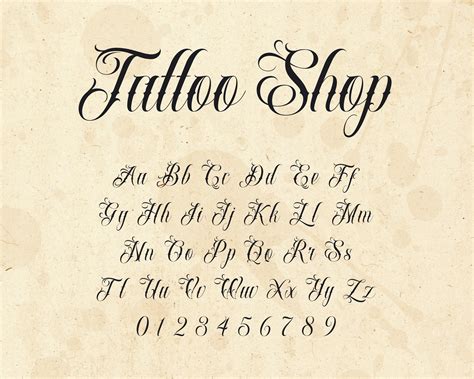
Tattoo Cursive Fonts, Tattoo is all about text and pictures in body art. Simply generate and share with your friends
The font includes alternate characters, ligatures, and multilingual support. Alevattros is a creative tattoo font that comes with a cursive script layout. For memorial tattoos, cursive fonts are preferable choices for example a name. Categories, popular, designers, optional web font download and links to similar fonts.
This is mainly because that cursive letters has an elegant, flowing appearance. And if you’re thinking about a word or phrase, there’s an overwhelming amount of. Generate cool and amazing fonts by using cursive tattoo font generator. Alevattros is a creative tattoo font that comes with a cursive script layout. Cursive fonts remind us of weddings, female passions, dramatic introductions,.
So, if you're looking for some bold. Clearly, this guy chose thick and strong cursive lettering done in black with shades of color to good effect. Home tattoos cute weird gothic more » graphic fonts alphabets. Tattoo is all about text and pictures in body art. But the cursive text is not only one type, there are four types of.
A free cursive font generator with cursive unicode letters for fancy cursive fonts. Simply generate and share with your friends Big swirly bits, huge visual appeal, and lots of variety. This is mainly because that cursive letters has an elegant, flowing appearance. Home tattoos cute weird gothic more » graphic fonts alphabets.
Use elegant fonts to make a statement, in logos, headlines, or other short pieces of text. Categories, popular, designers, optional web font download and links to similar fonts. Looking for cursive tattoo fonts? Tattoo is all about text and pictures in body art. Big swirly bits, huge visual appeal, and lots of variety.
Generate cool and amazing fonts by using cursive tattoo font generator. Revalina thin script font (otf, ttf, woff) Use elegant fonts to make a statement, in logos, headlines, or other short pieces of text. There are different styles of writing that you can use for text tattoos; However, for different languages, cursive writing can mean differently, for example, for eastern.
Classics (baskerville, futura, garamond) alongside hot new fonts (brice, moneta,novera). But the cursive text is not only one type, there are four types of cursive text available for now, and you need to know about it. Cursive is a type of handwritten fonts where a single line stroke creates the whole word… just like writing with a pen. Professional tattoo.